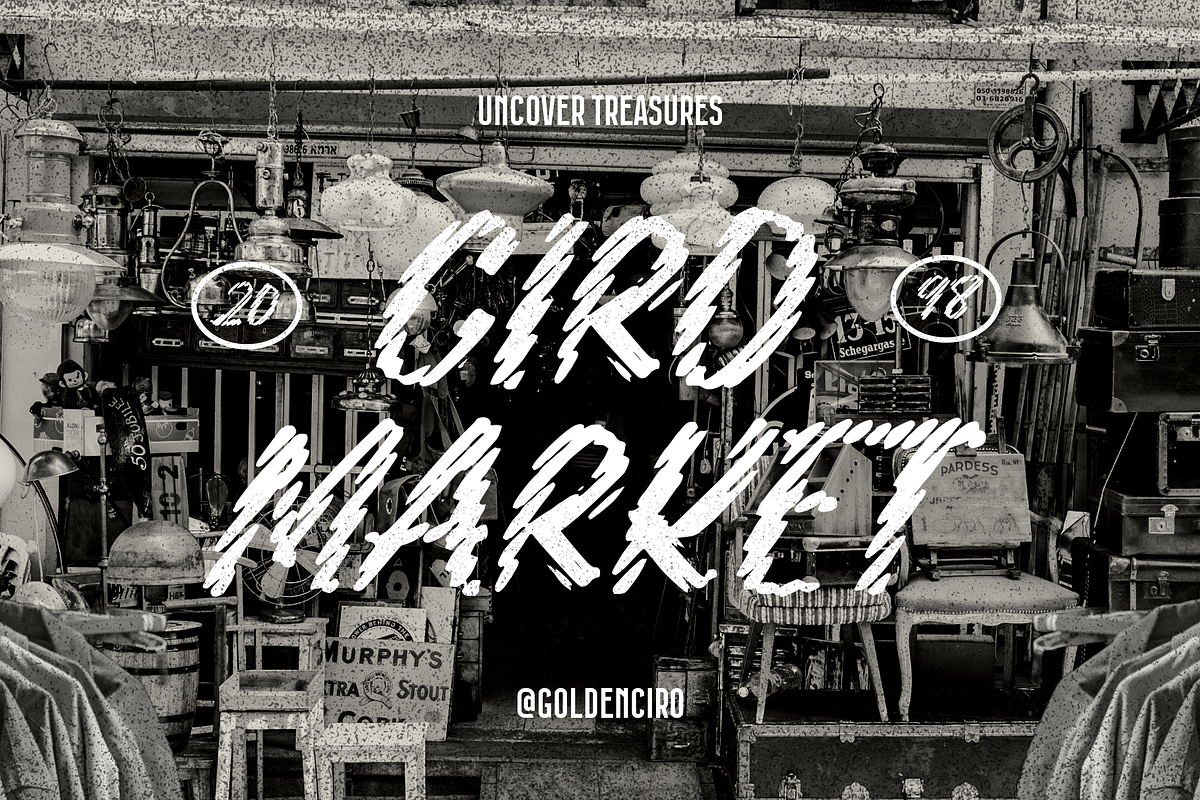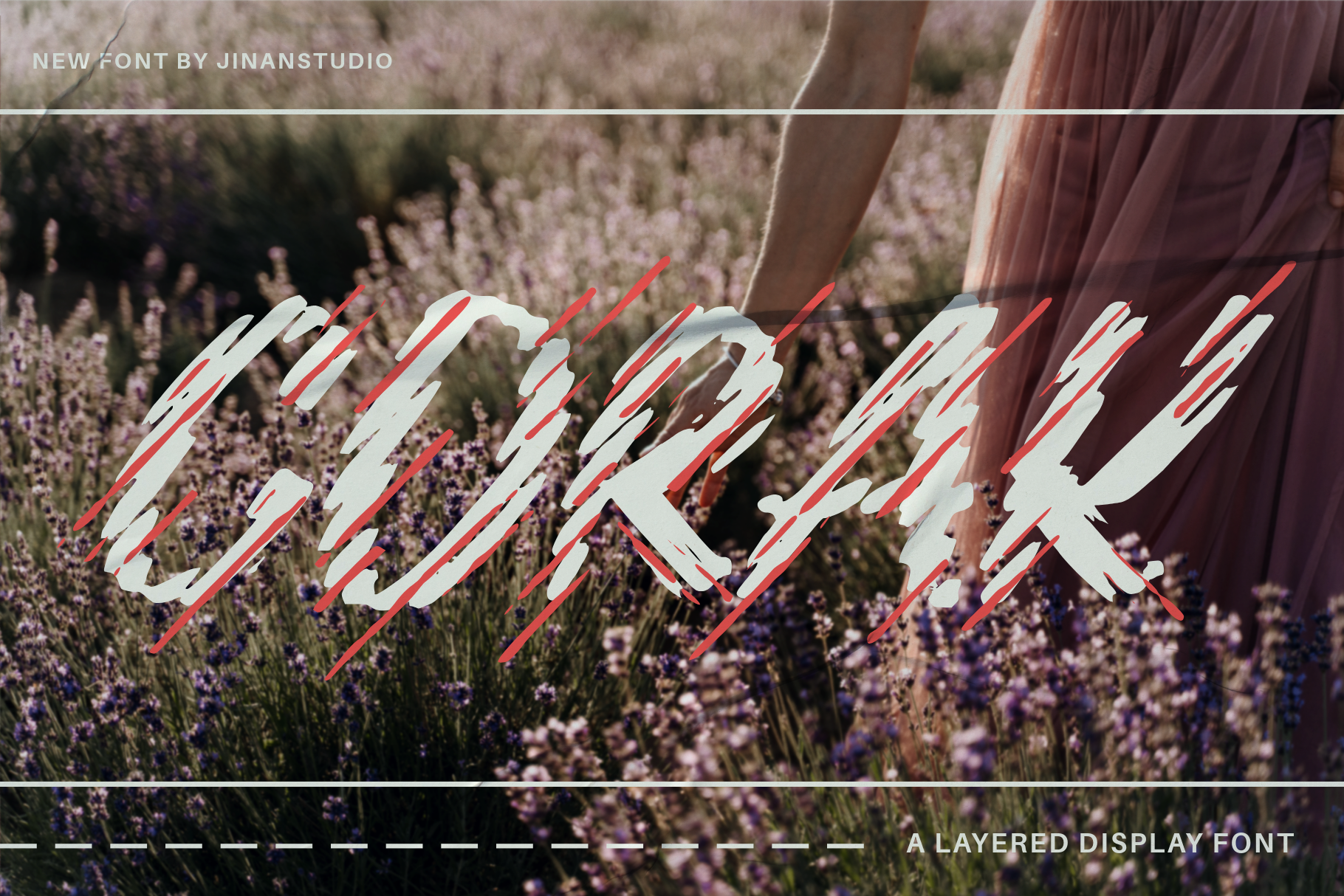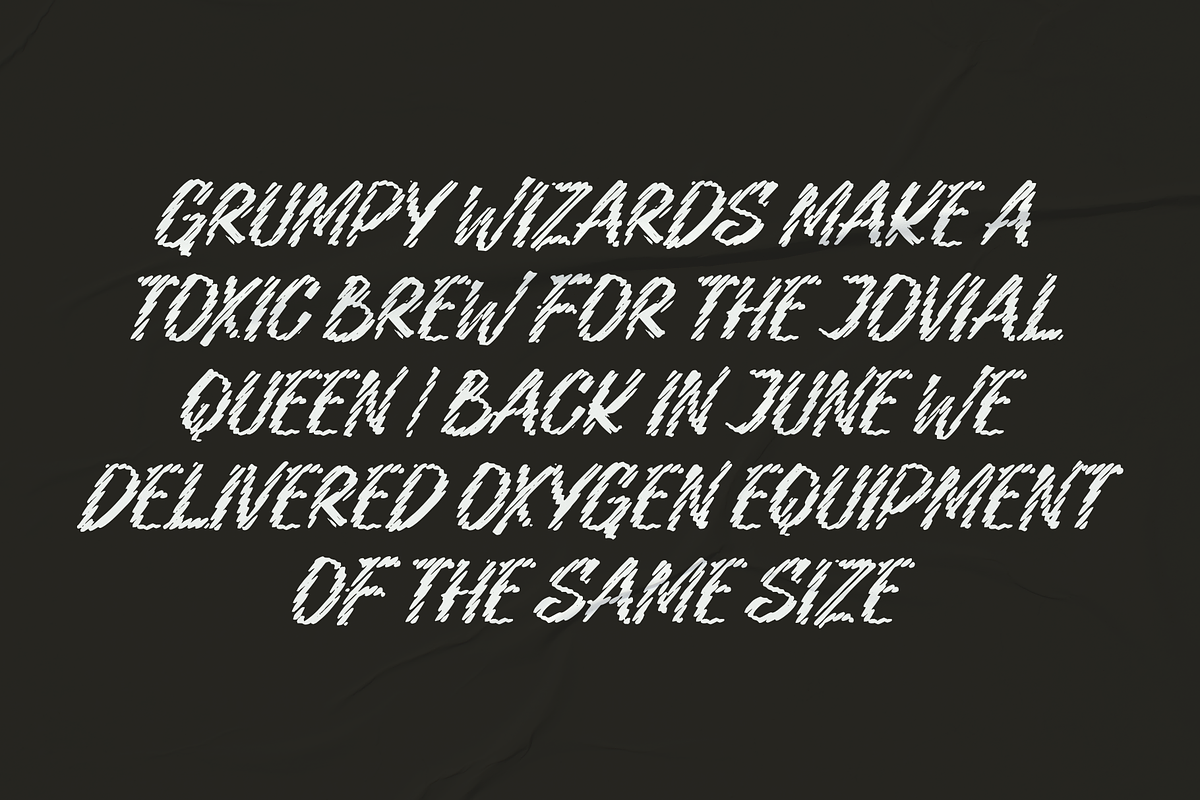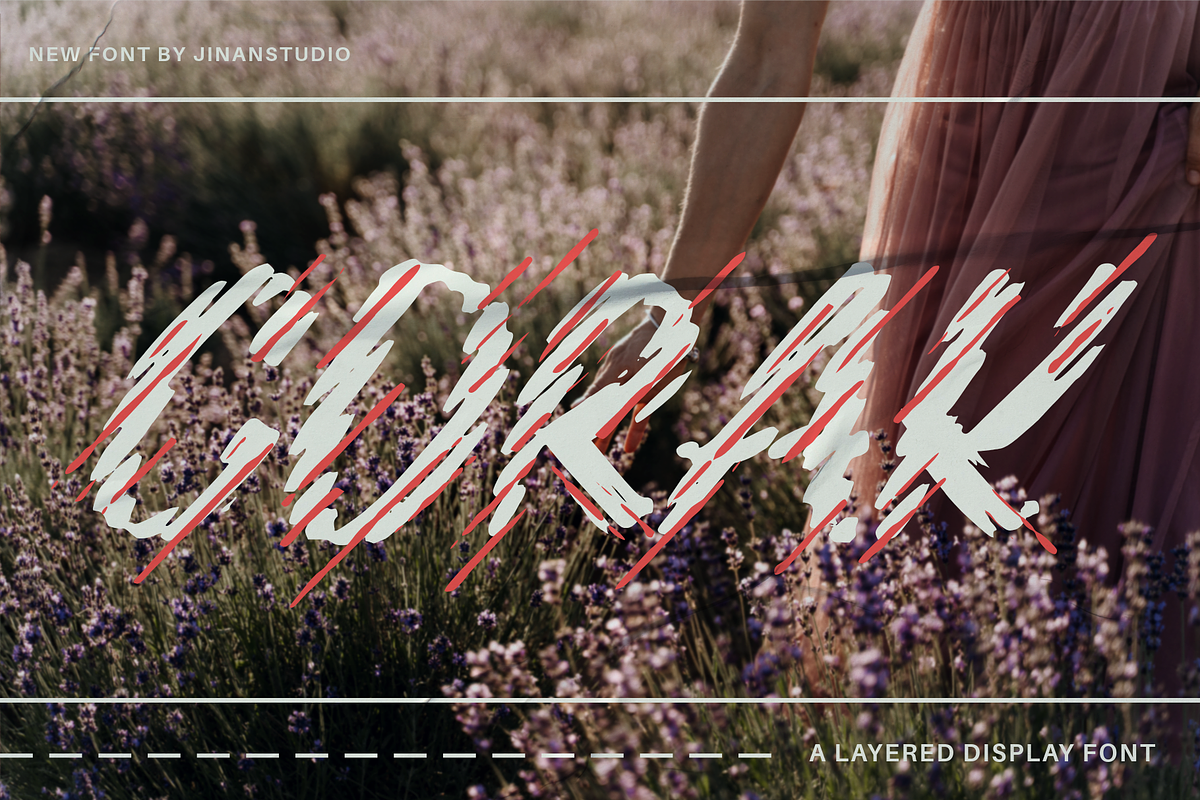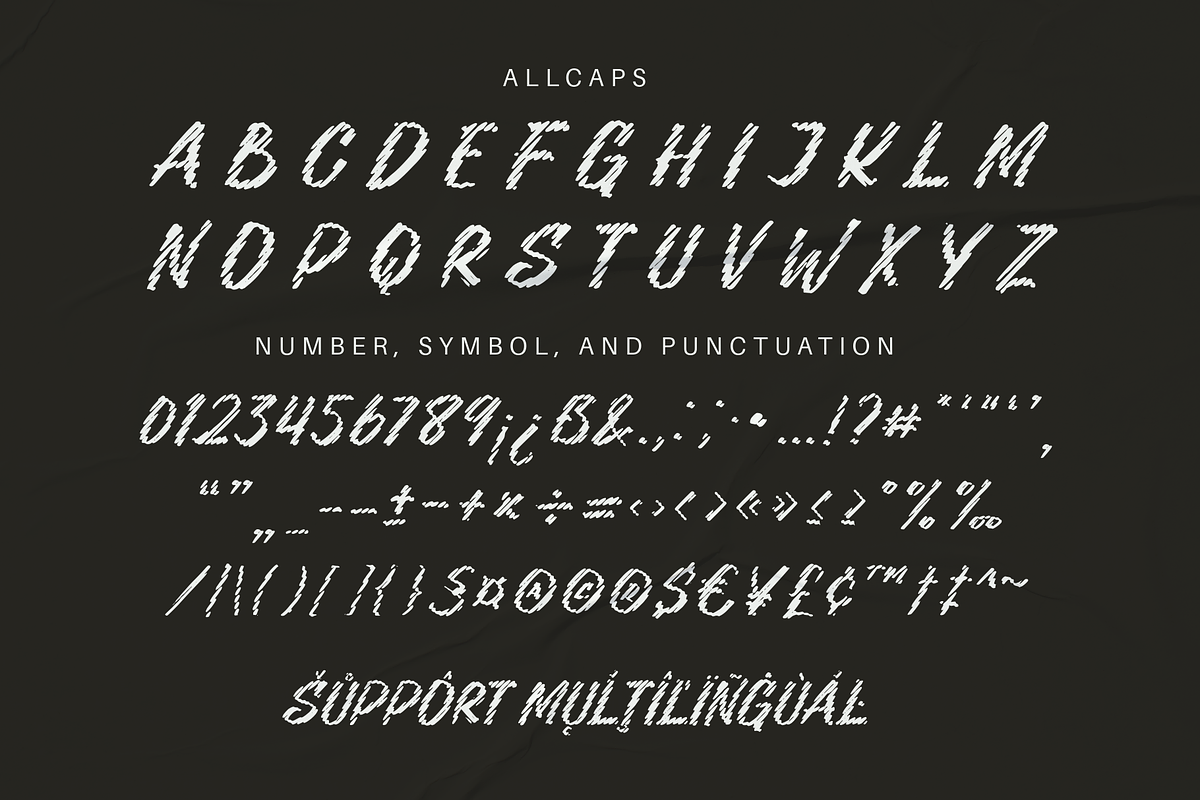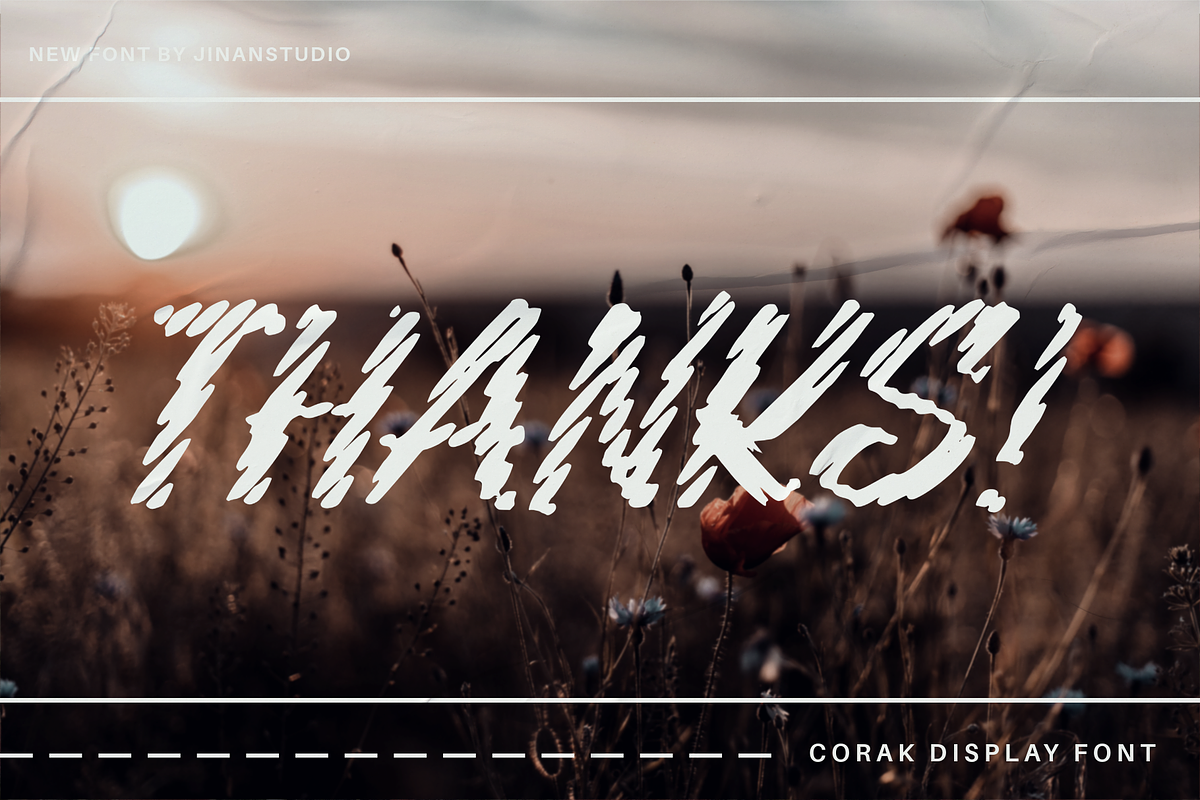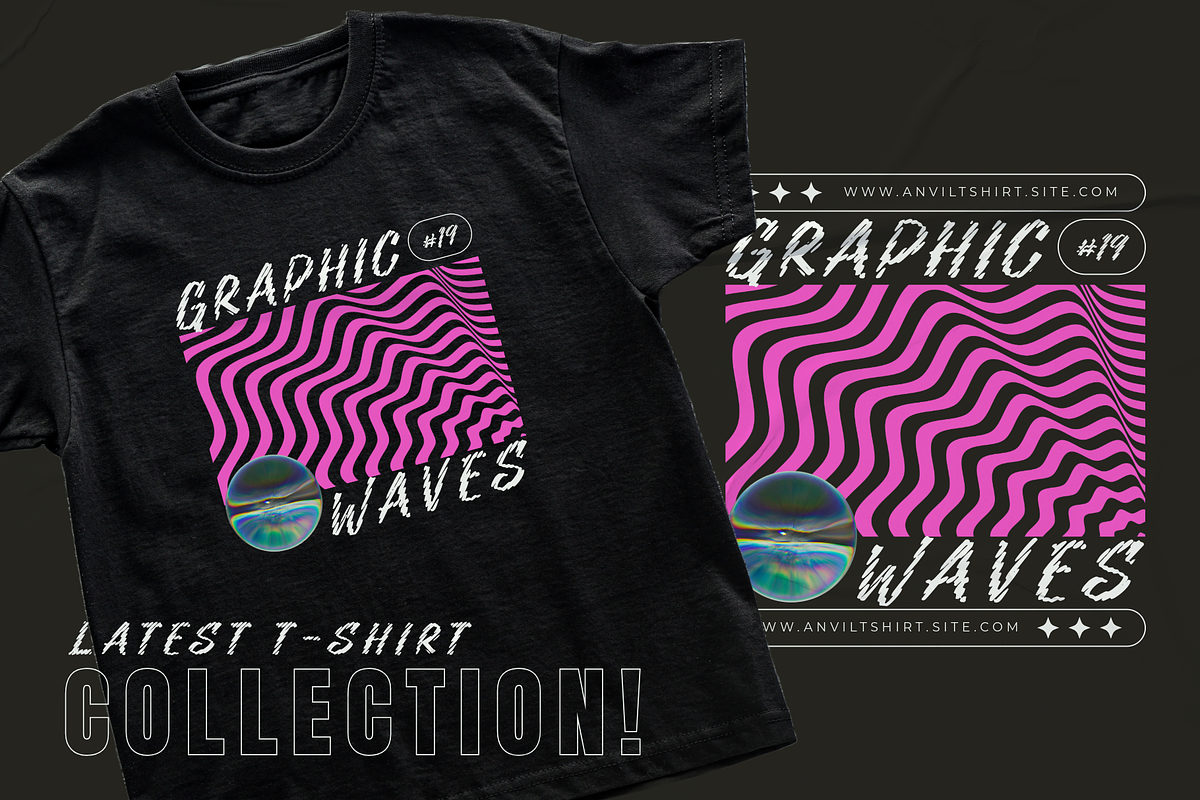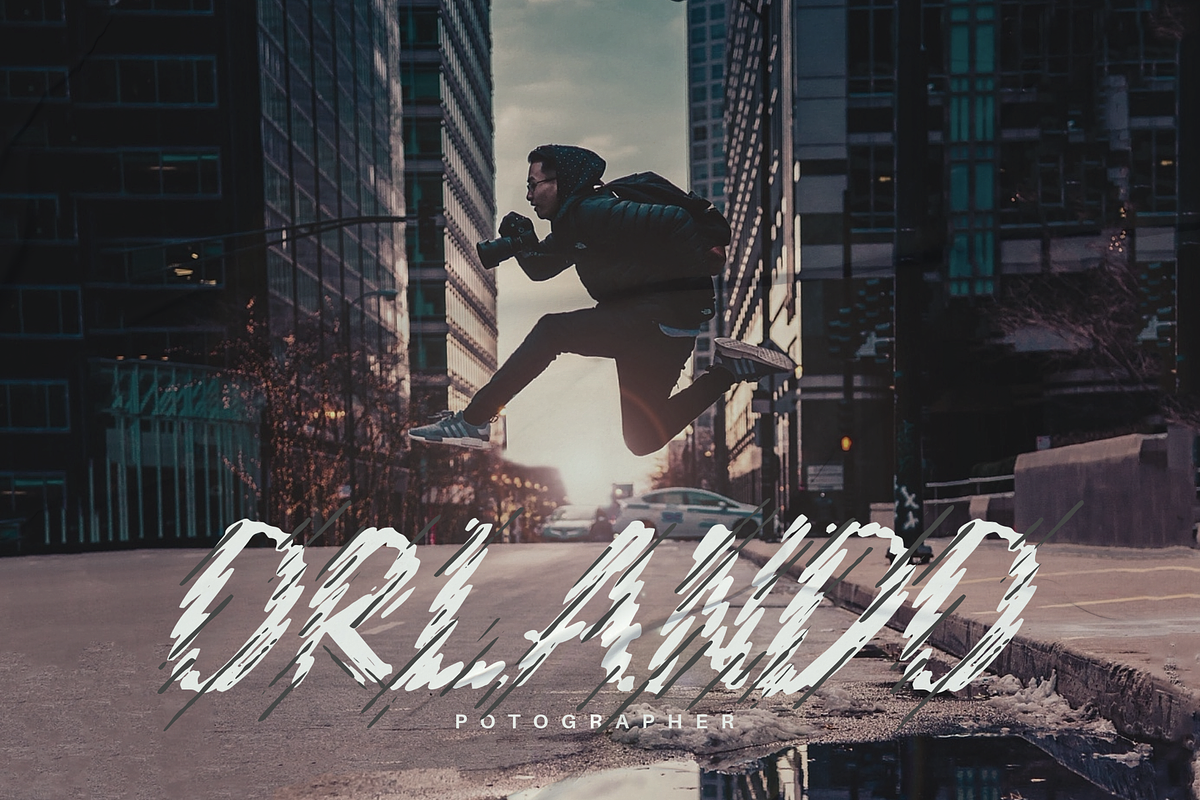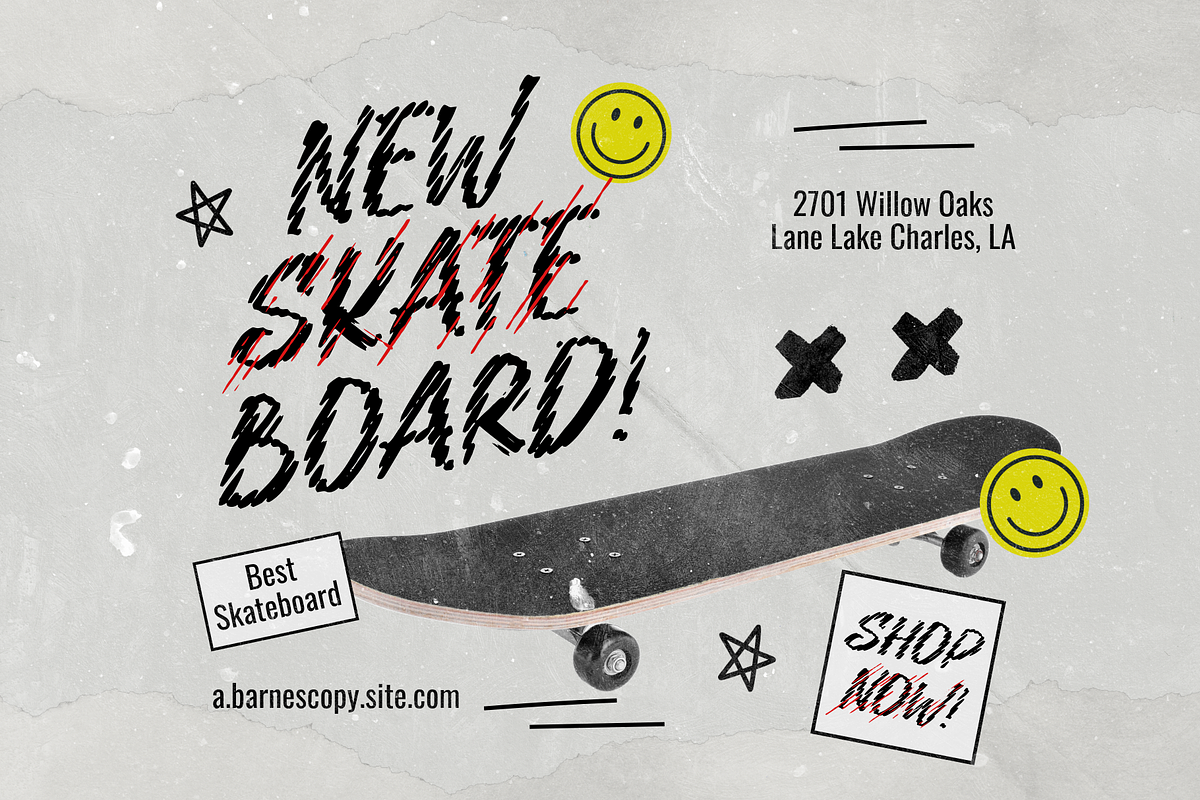
Corak - Display Sign Painting Font
Introducing Corak, a strikingly bold display font expertly crafted for sign painting. No detail is too small to skip as Corak adds flair to your branding, gives depth to your quotes, and injects vibrancy into your promotions. The robust strokes combined with chic letterforms amplify your message while adding a creative spin. Bask in the versatility of Corak; a font with remarkable multilingual support that breaks barriers and embraces global access. Regardless of the design project that lies ahead, Corak is the quintessential font to bring your creative vision to life. Unleash the power of Corak font today.
- Allcaps
- Number, symbol, and punctuation
- Outline Version
Type J_1 until J_5 to features swash